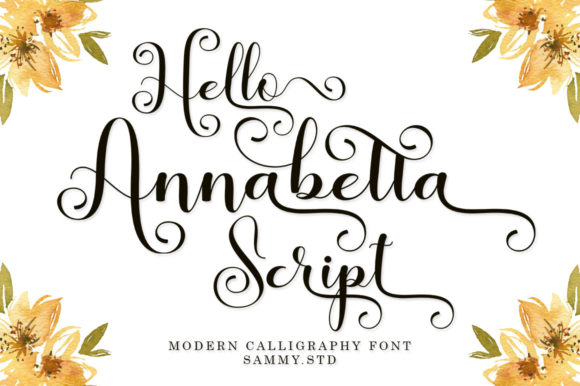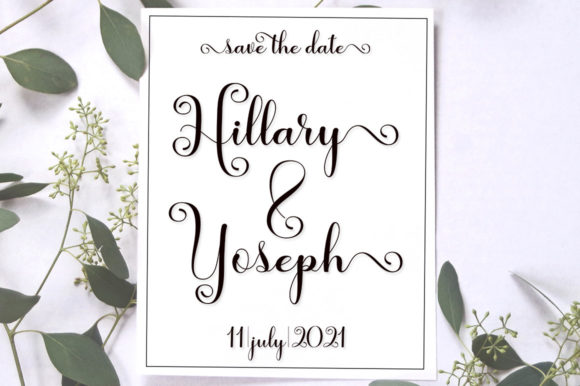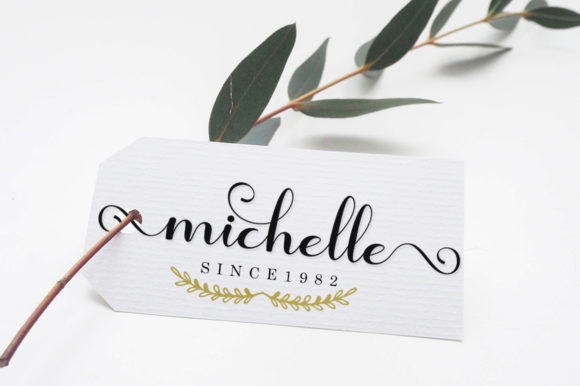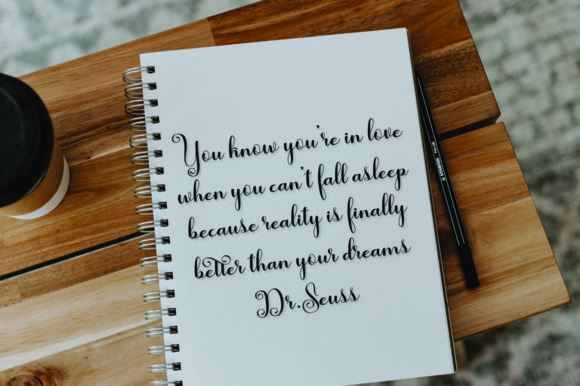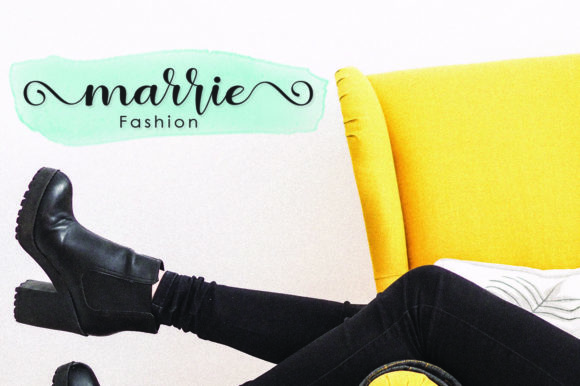
About Hello Annabetta Script Font
Hello Annabetta Script is a beautifully designed script font that captures attention with its dazzling and intricate details. With its elegant and refined style, this font is a valuable addition to your font library, capable of enhancing a wide range of creative projects.
The craftsmanship and attention to detail in Hello Annabetta Script make it a standout font for any topic or design. Each letter is carefully crafted, resulting in a font that exudes sophistication and charm. Whether you’re designing logos, branding materials, invitations, or any other creative project, Hello Annabetta Script adds a touch of elegance and beauty.
One of the key features of Hello Annabetta Script is its PUA encoding. This means that you have easy access to a wide range of glyphs and swashes, allowing you to customize and personalize your designs effortlessly. With a variety of alternate characters and stylistic options, you can create unique and eye-catching typography that perfectly complements your vision.
The versatility of Hello Annabetta Script allows it to adapt to various design themes and purposes. Whether you’re working on wedding stationery, luxury branding, fashion editorials, or any other project that requires a touch of sophistication, Hello Annabetta Script delivers with its intricate and refined style.
Furthermore, the legibility and readability of Hello Annabetta Script make it suitable for both small and large-scale designs. Whether you’re using it for headlines, titles, or body text, the clarity of the letterforms ensures that your message is conveyed effectively and beautifully.
In summary, Hello Annabetta Script is a dazzling script font that adds sophistication and elegance to your designs. With its neatly crafted details, PUA encoding for easy customization, and versatility for various design purposes, Hello Annabetta Script is a valuable asset for enhancing your font library and elevating your creative projects. Embrace the beauty and potential of Hello Annabetta Script in enhancing your designs.